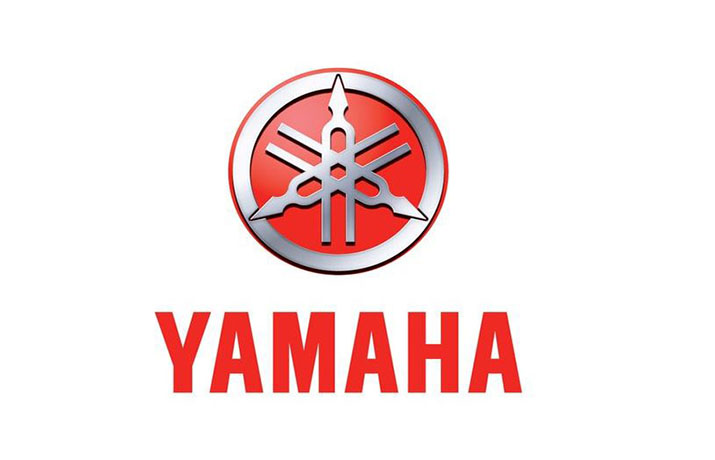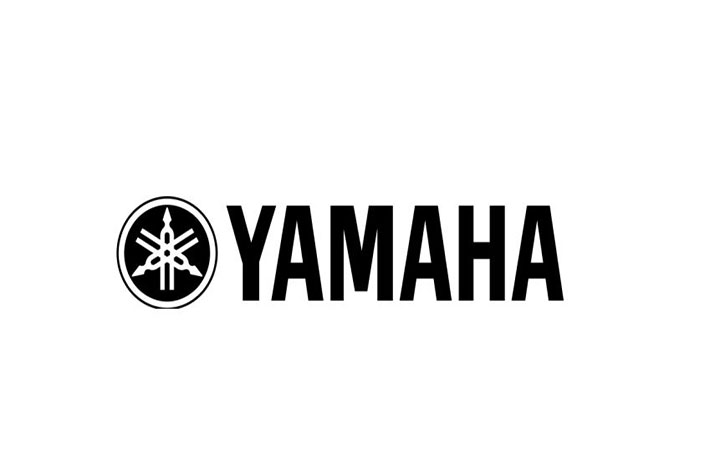
Yamaha Font! Yamaha is a Japanese multinational corporation that was founded on 12 October 1887 as a Nippon Gakki Co. Ltd. The Yamaha Font embodies the brand’s core values and visually communicates its identity to the world.
This distinctive typeface is carefully crafted to reflect Yamaha’s commitment to precision and sophistication. With its sleek lines, balanced proportions, and harmonious curves, the font captures the essence of Yamaha’s engineering prowess.
The Yamaha Font not only serves as a visual representation of the brand but also plays a crucial role in establishing brand recognition and consistency.
From musical instruments to audio equipment, the font seamlessly integrates into Yamaha’s product designs, packaging, and marketing materials. Its versatility allows it to adapt to various mediums while maintaining its distinct character and legibility.
Here we want to provide you with the font that’s in it. Its name is Swiss 911 Extra Compressed Font. It comes only in regular style along with Truetype features.
| Font Name: | Yamaha Font Family |
| Style: | Logo, Sans Serif, Display |
| Font Designer: | Nippon Gakki Co. Ltd |
It serves as a symbol of trust, authenticity, and excellence, reinforcing Yamaha’s position as a leader in the industry.